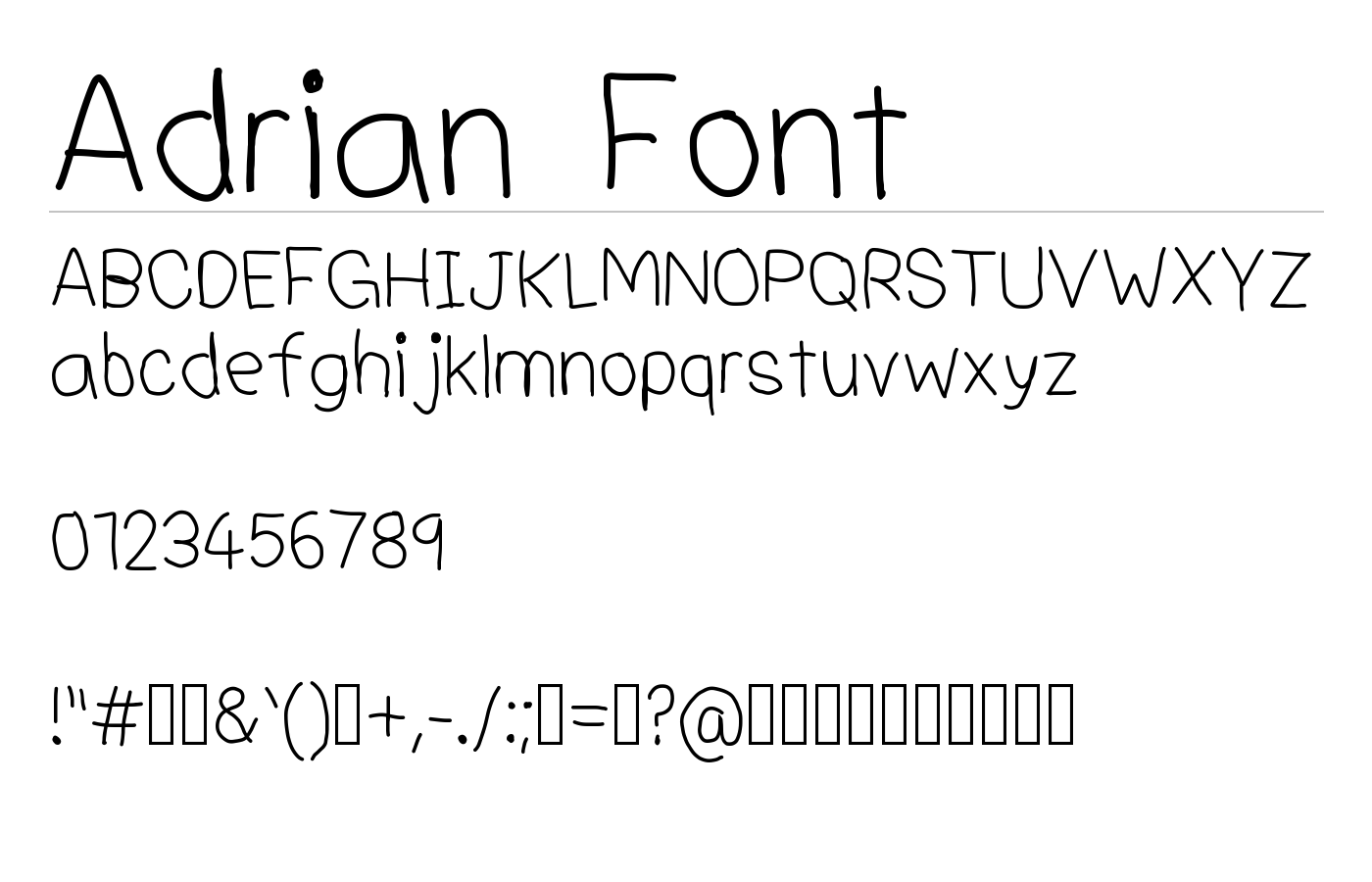
Adrian Font is a playful, hand-drawn sans serif typeface characterized by its tall, narrow letterforms and irregular stroke widths that give it a casual and friendly feel. Its quirky shapes and clean lines make it an excellent choice for informal designs, children’s books, creative projects, and branding that seeks a personal, approachable touch. This font works well for headlines, packaging, and websites where a unique, whimsical style is desired.
Adrian Font
About Adrian Font